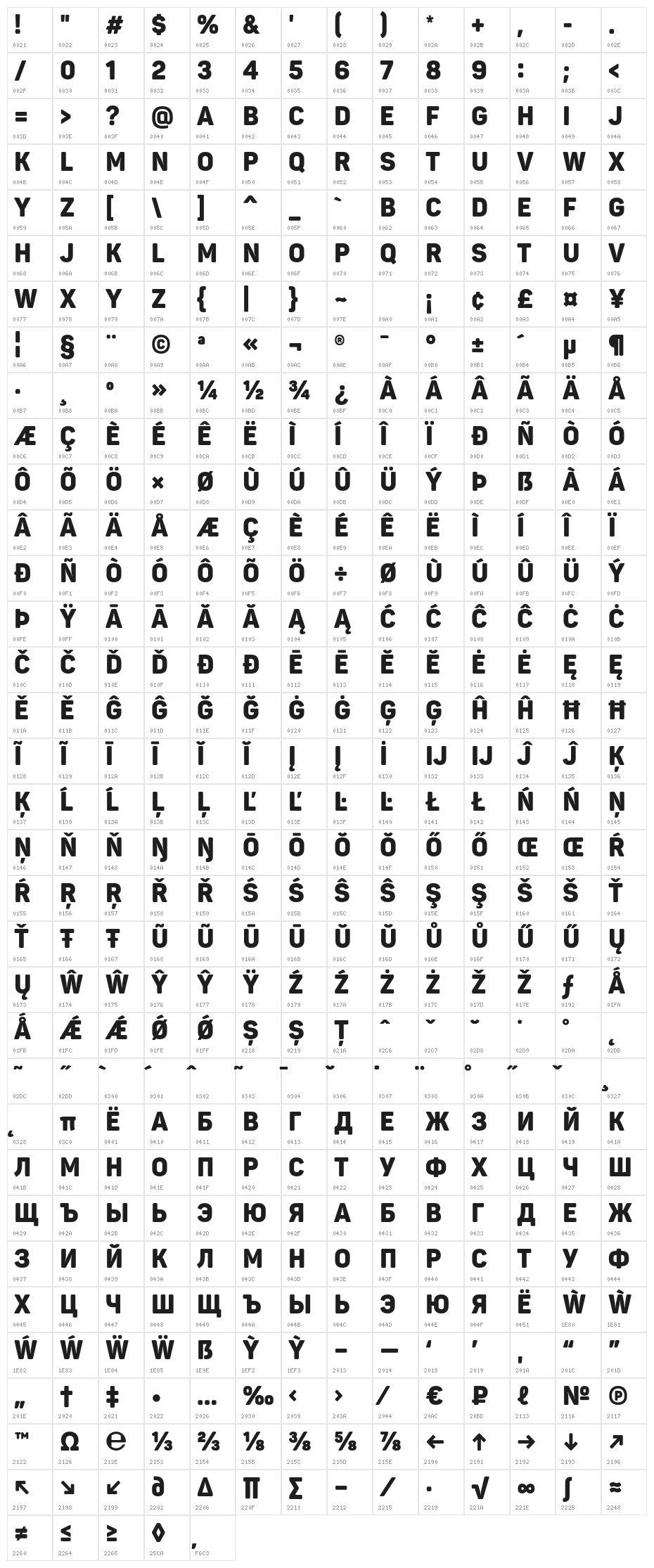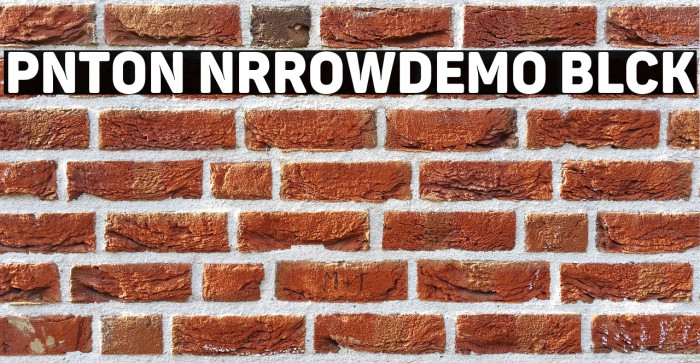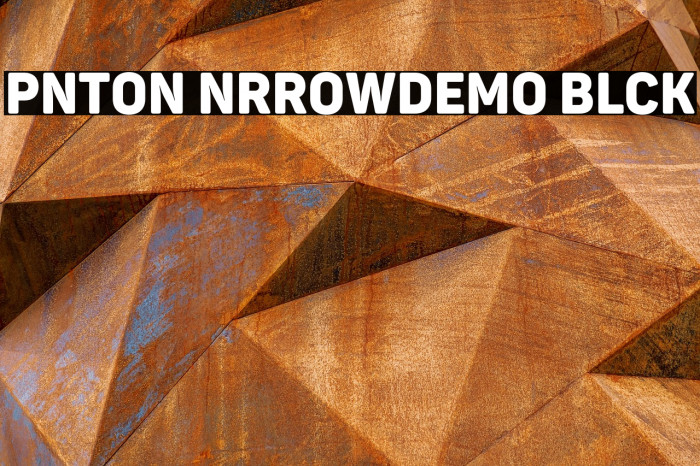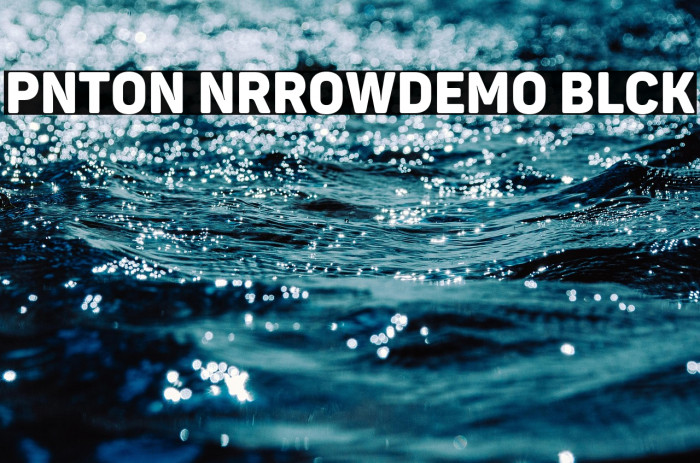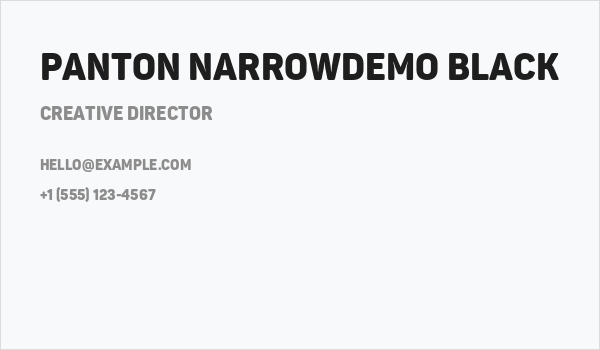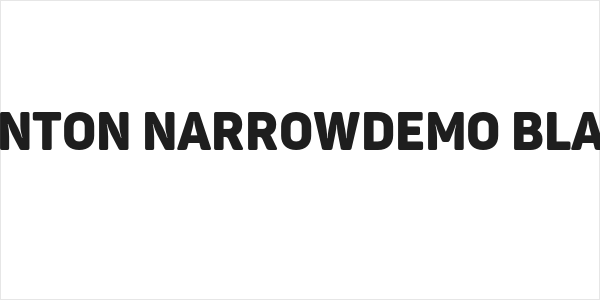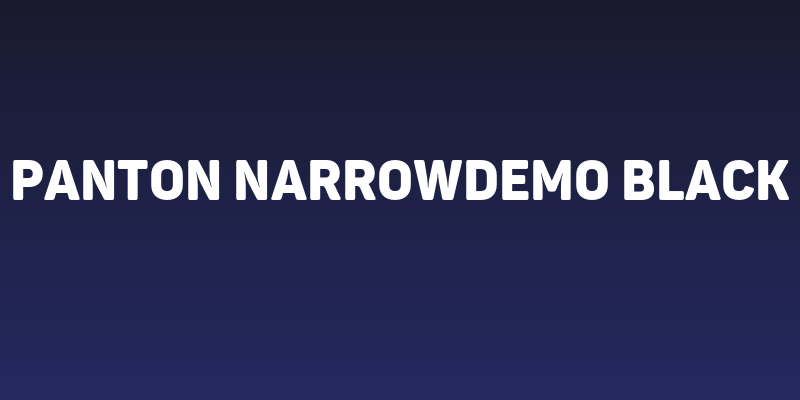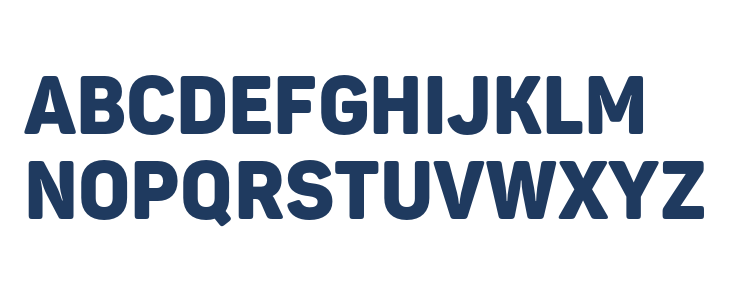
Panton NarrowDemo Black Font
Panton NarrowDemo Black Description
This font features a bold and modern design with a narrow structure, making it highly suitable for impactful headlines and attention-grabbing text. The characters are uniformly thick, providing a strong visual presence. The uppercase and lowercase letters maintain a consistent style, with rounded edges that soften the overall appearance. The numerals and special characters are designed to match the boldness of the alphabet, ensuring a cohesive look across all text elements. This font's narrow width allows for efficient use of space without sacrificing readability.